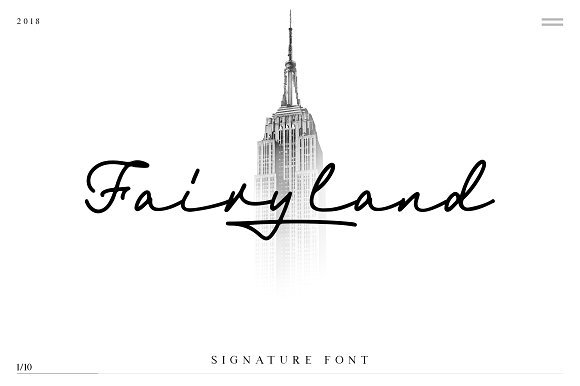
Fairyland Signature Font
This is a handwritten font with signature style. I really hope you enjoy using this font. Introducing Fairyland Font, it is was designed and shares by Runsell Studio. Fairyland is a classy signature font with a distinctive curve, inside with some interesting features that are perfect for a authentic-style project . This font perfectly suited to signature, stationery, logo, typography quotes, magazine or book cover, website header, clothing, branding, packaging design and more.